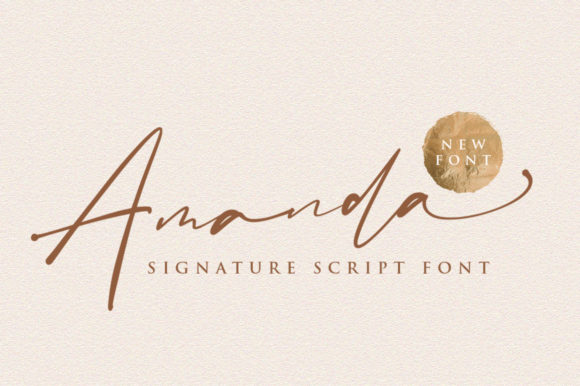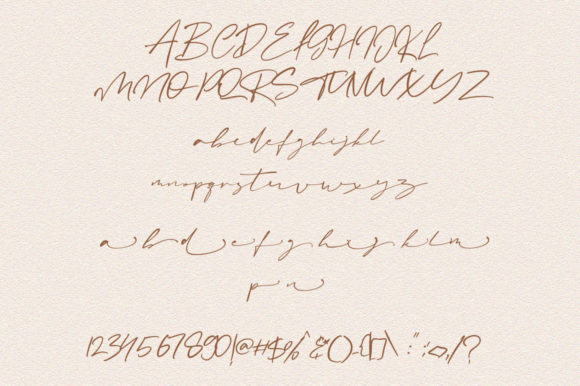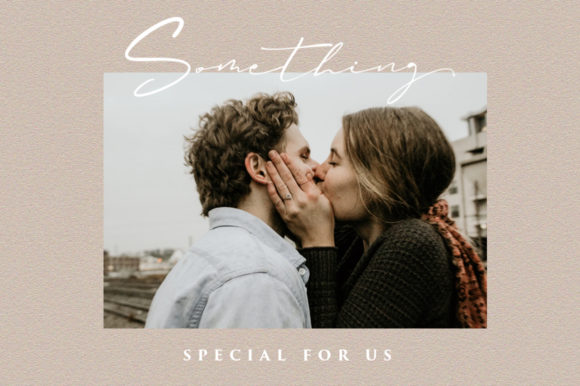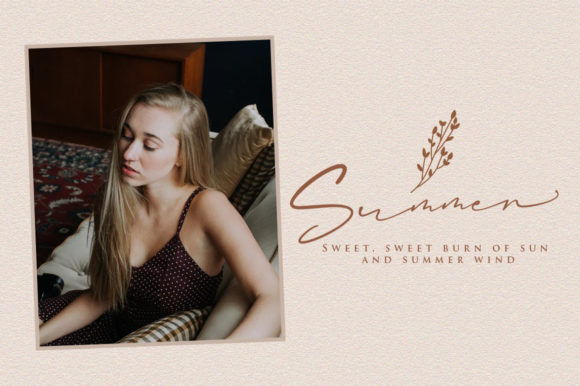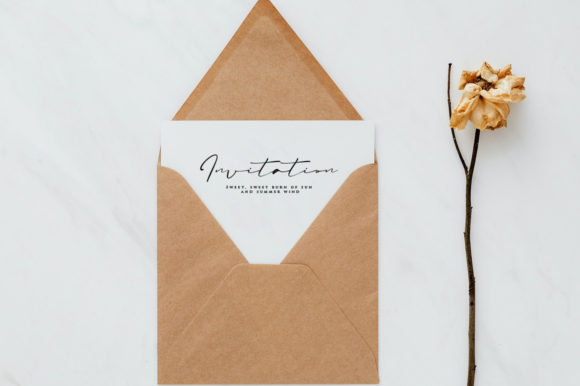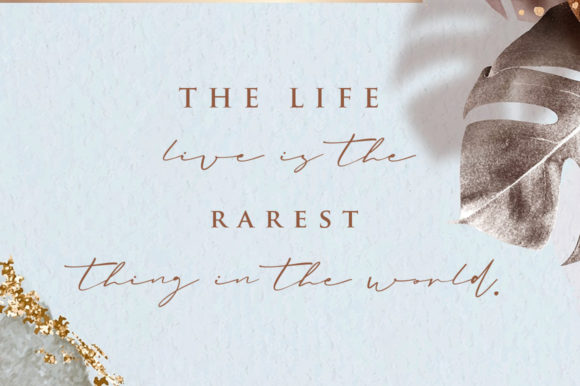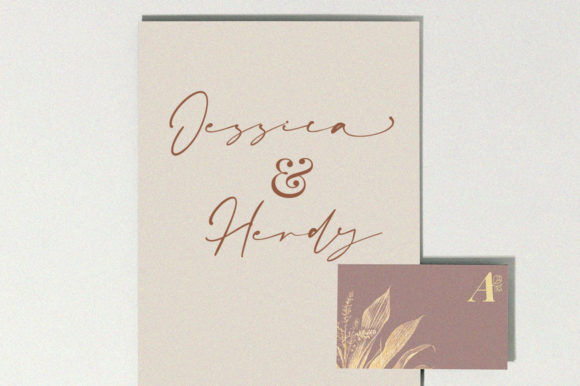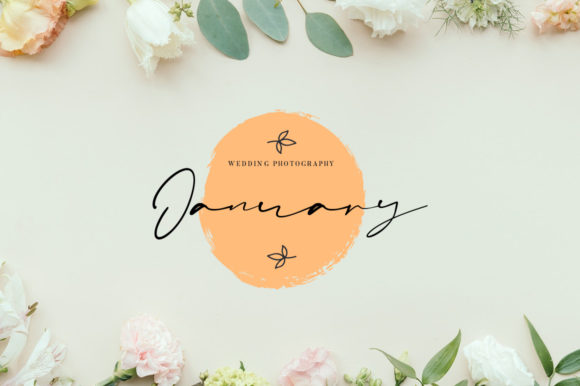
Amanda Font
About Amanda Font
Amanda is a unique and incredibly relaxed handwritten font. It looks stunning on wedding invitations, thank you cards, quotes, greeting cards, logos, business cards and every other design which needs a handwritten touch.